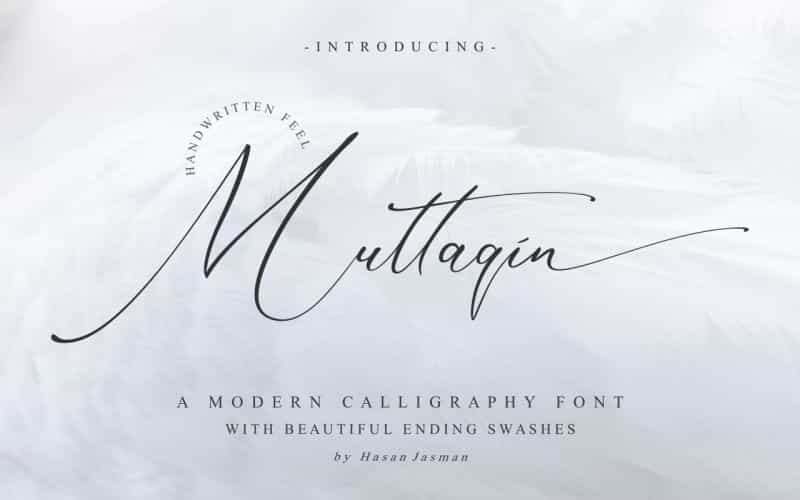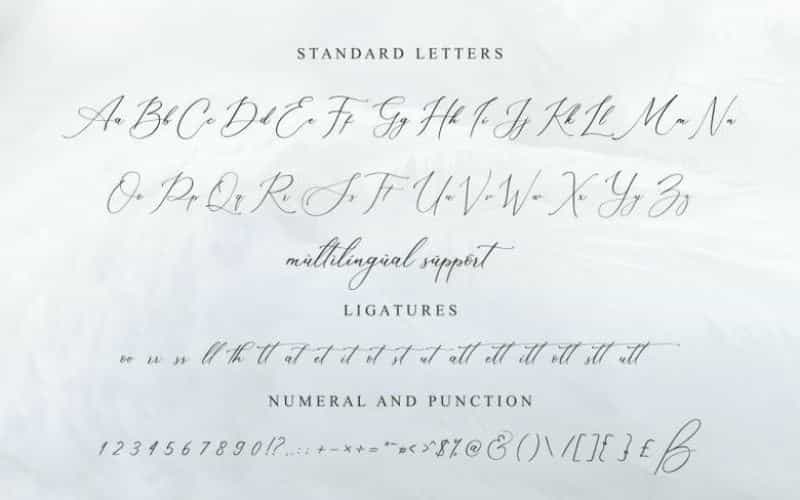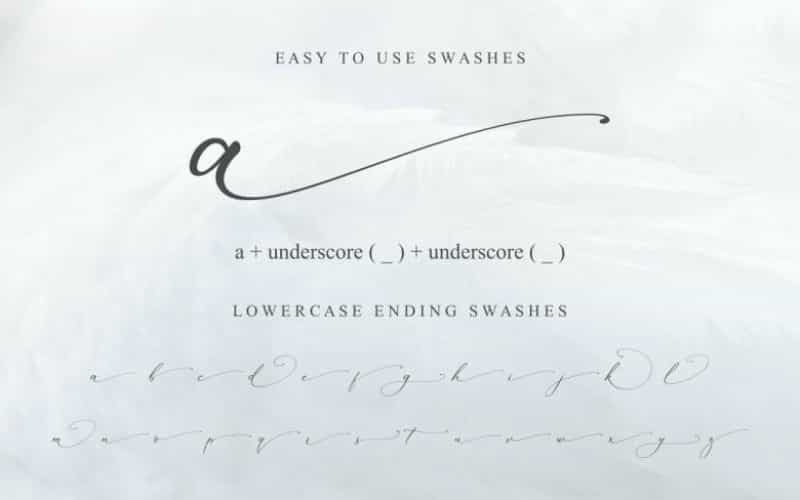
Muttaqin Calligraphy Font is a contemporary calligraphy font with a handwritten look and feel, it is great for branding, wedding invitation, cards, design and other things. The all lowercase letters have beautiful ending swashes which make it look fabulous.